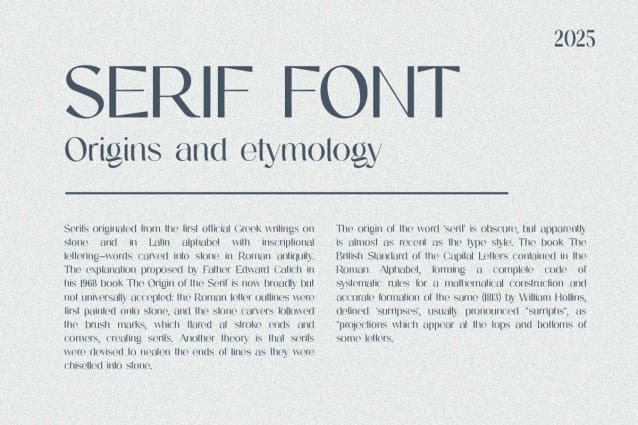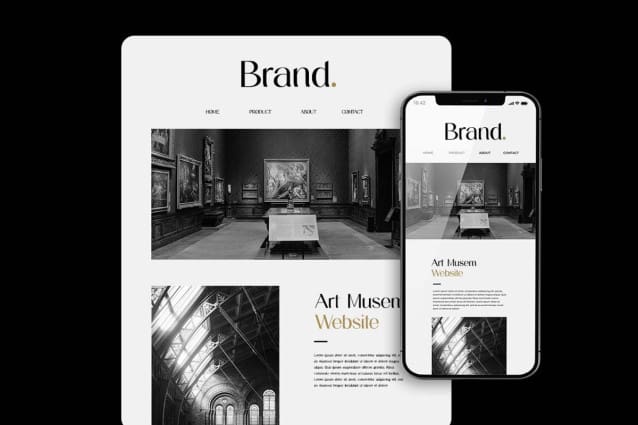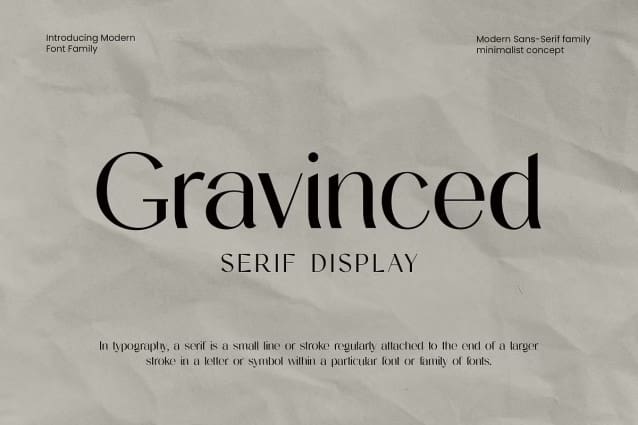
Gravinced Font
Gravinced Font – Modern Serif Display Font Family. The modern display font feels beautiful classy, elegant, and stylish. This font is ideally suited for a wide variety of projects, such as signature, stationery, logo, wedding, typography quotes, magazine or book covers, website headers, branding, and more. Also, fashion-related branding or editorial design displays both masculine and feminine qualities.